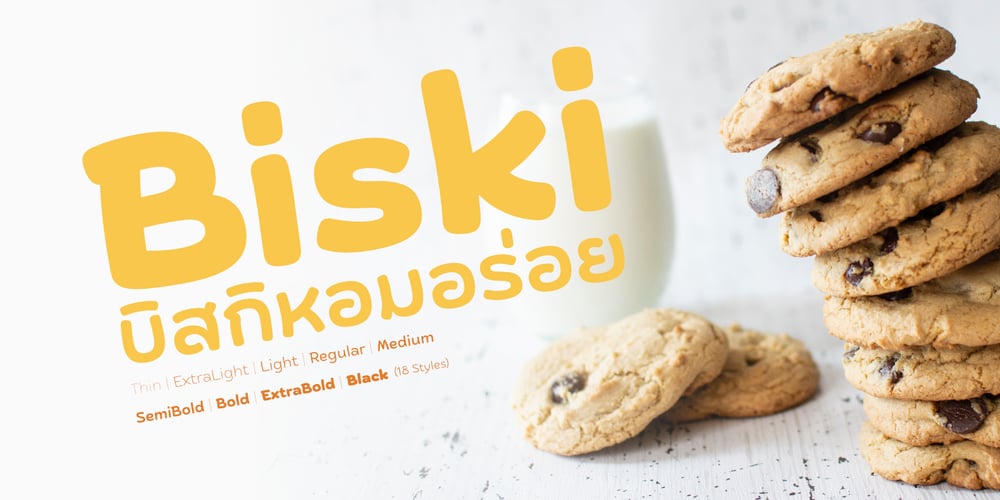
Biski Font Family was designed by Anupap Jaichumnan and published by Jipatype. Biski contains 18 styles and family package options. Biski is a charming and playful sans serif display font typeface that radiates cuteness and joy. With its delightful aesthetic and 18 available styles, particularly suited for projects aimed at children and snack products.